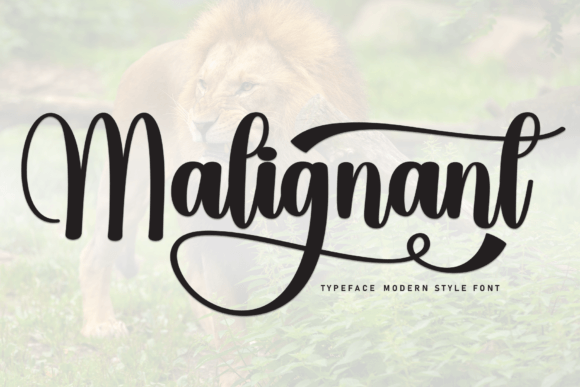
Journey into the Enchanting Realm of Malignant: A Script Font Seduction
Unleash the captivating power of Malignant, a script font that evokes elegance, charm, and sophistication like no other. Its exquisite curves, romantic strokes, and alluring presence will leave you spellbound. Crafted with meticulous attention to detail by the renowned Roronoa zoro.S.P.D., Malignant is a masterpiece that will elevate your creative projects to new heights.
Indulge in the mesmerizing beauty of Malignant, a font that embodies the art of cursive handwriting. Each letter is a delicate dance of flowing lines, gracefully intertwining to create a visual symphony. Experience the joy of crafting personalized notes, heartfelt messages, and captivating invitations that exude warmth, charm, and a touch of timeless elegance.
Picture your words adorned in the exquisite artistry of Malignant, captivating the hearts of your audience. Imagine your wedding invitations radiating an aura of romance, your thank-you cards spreading gratitude with heartfelt sincerity, and your quotes and greetings resonating with a touch of elegance. Malignant is the perfect companion for expressing your emotions and connecting with others in a profound and meaningful way.
Step into the world of design and let Malignant transform your logos and business cards into works of art. Its graceful strokes and sophisticated presence will elevate your branding, leaving a lasting impression on clients and colleagues alike. Every element of your visual identity will radiate professionalism, creativity, and an unwavering commitment to excellence.
Malignant is more than just a font; it's an artistic expression that transcends the boundaries of ordinary typography. It's an invitation to explore the depths of your imagination, to create designs that captivate, inspire, and leave an indelible mark on the world. Experience the magic of Malignant today and unlock the gateway to a realm of creativity that knows no limits.